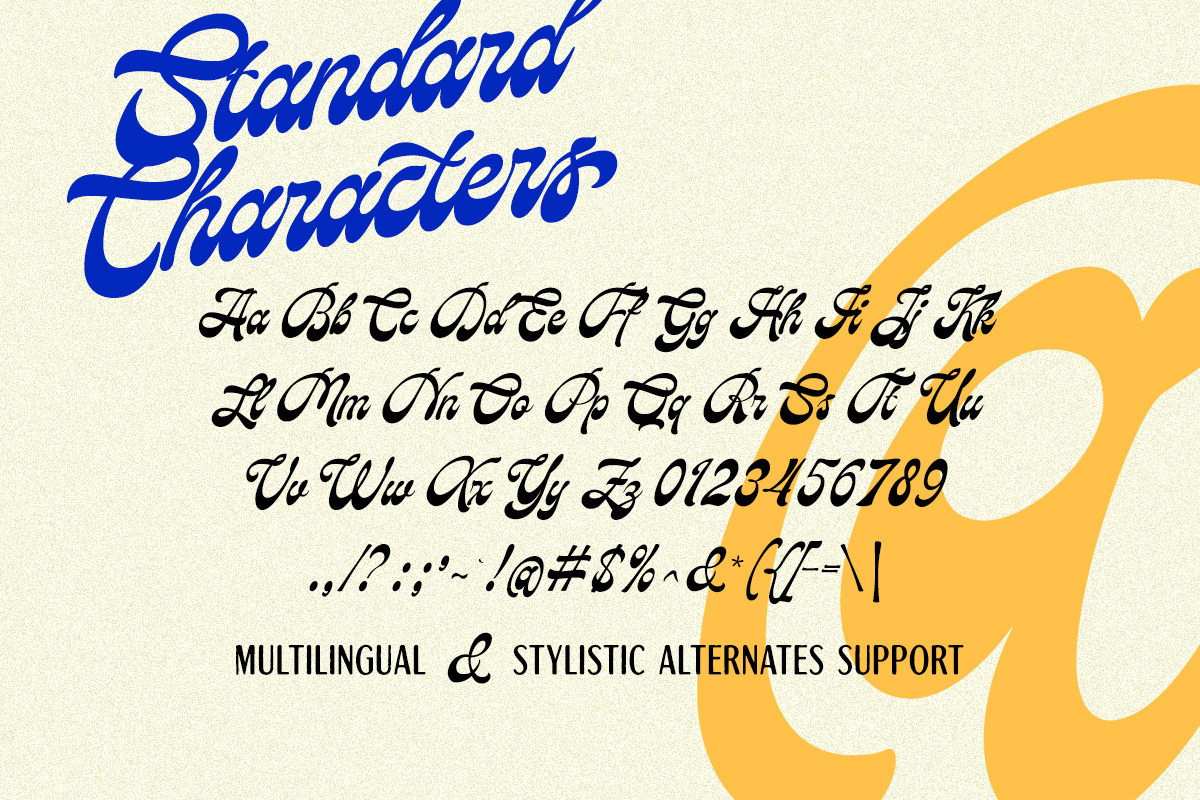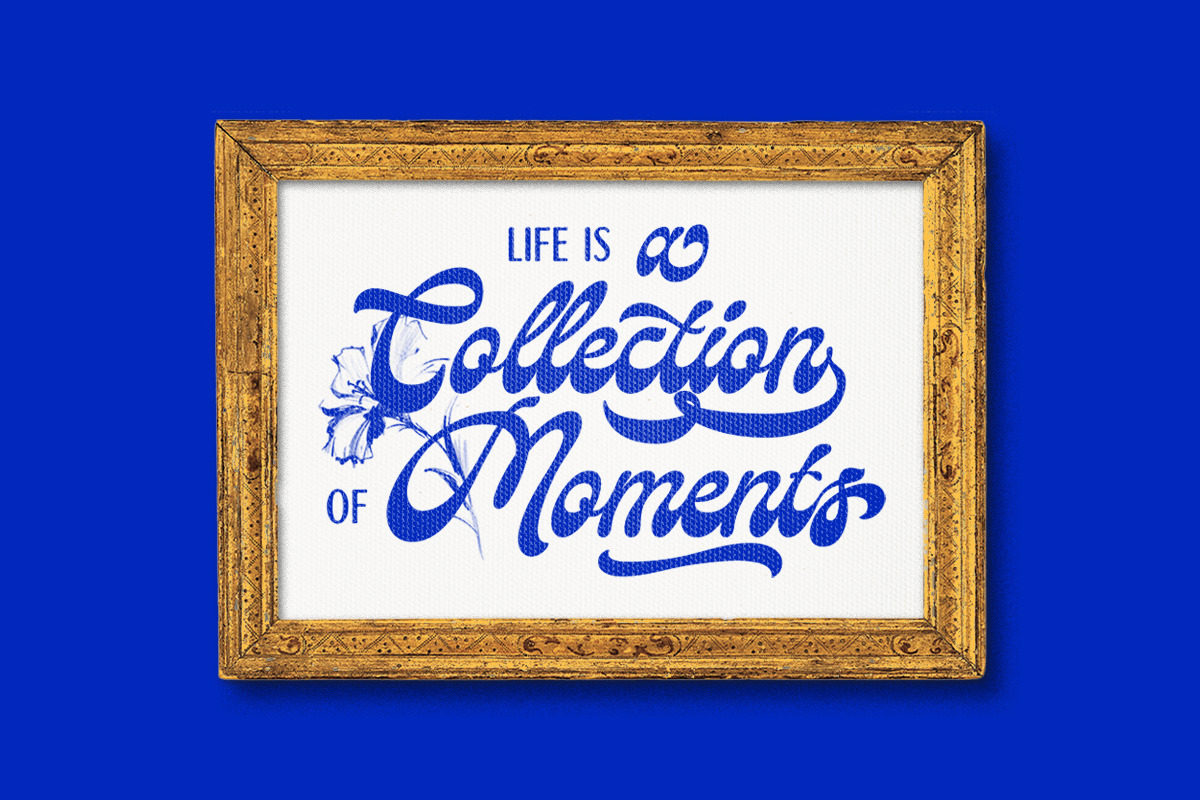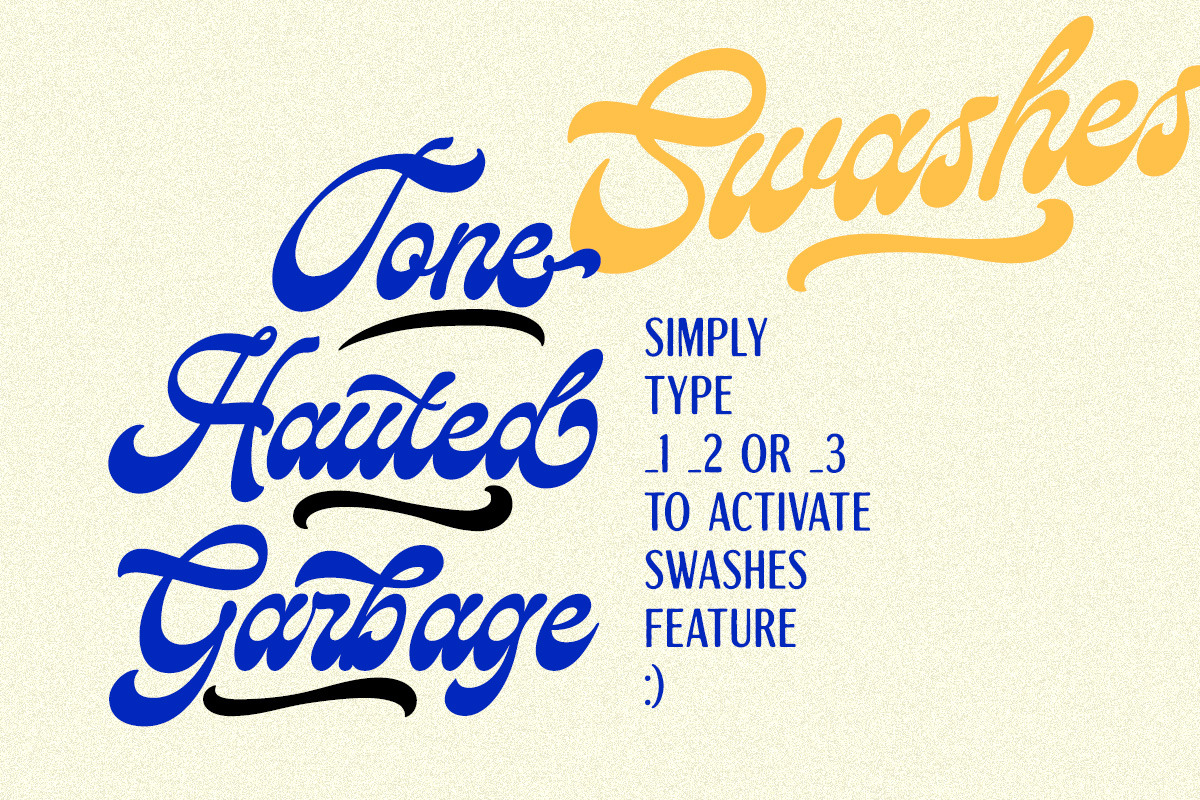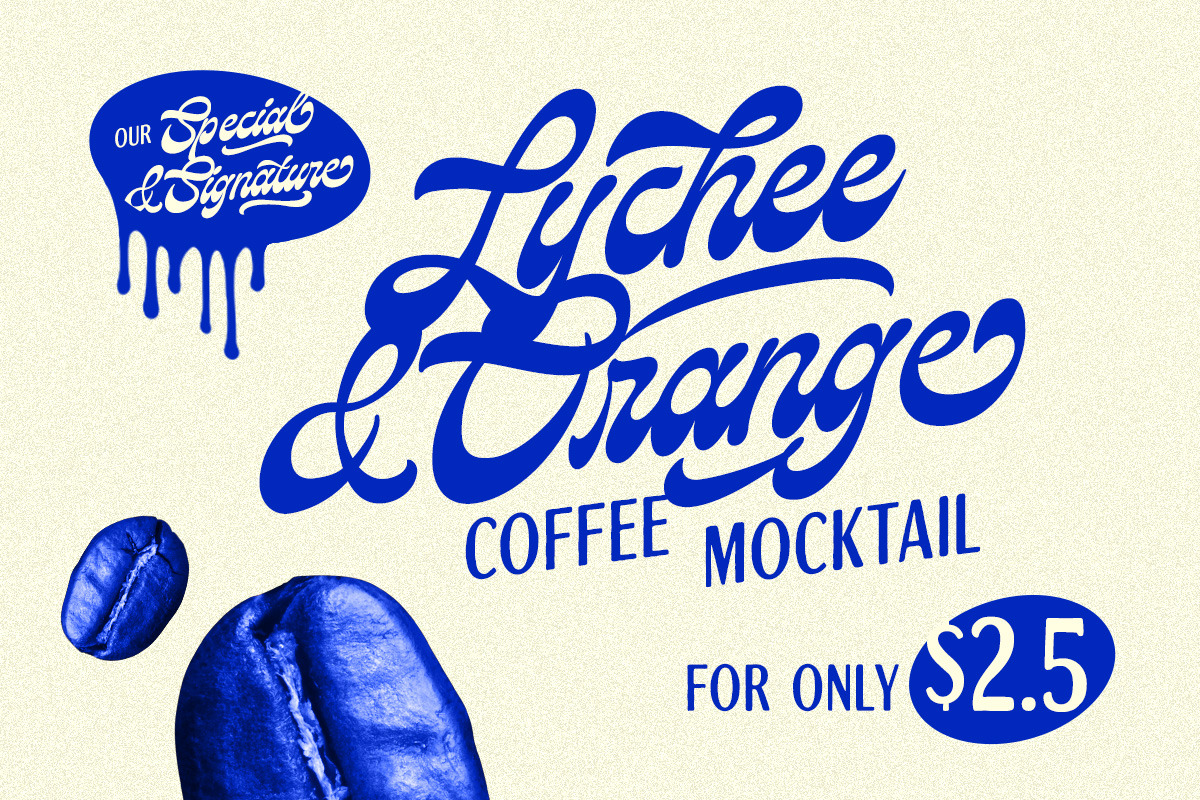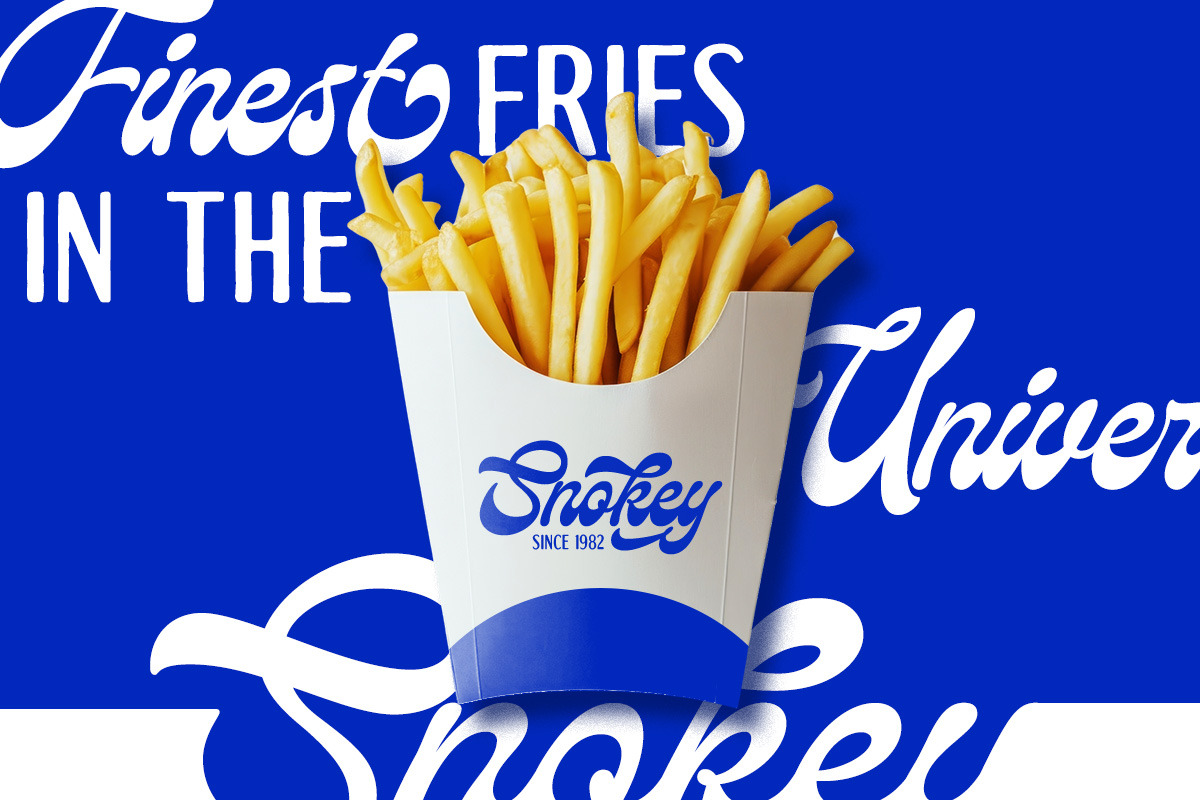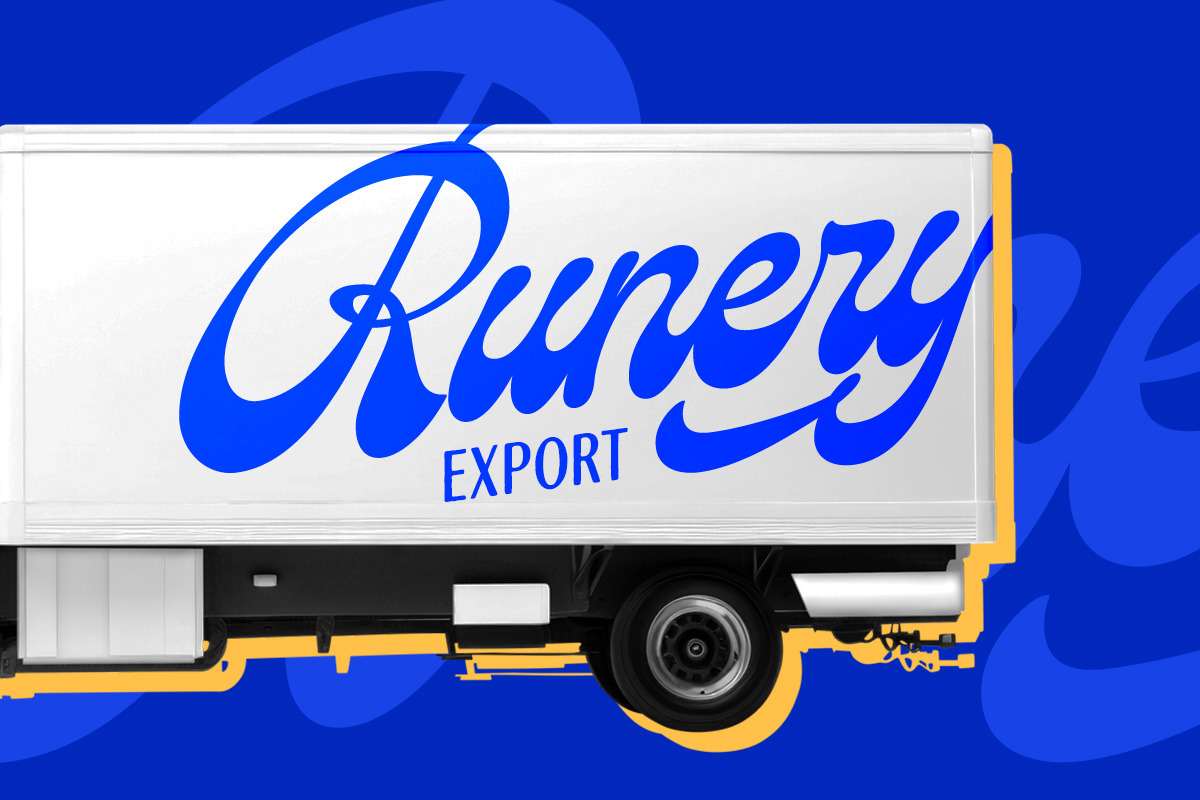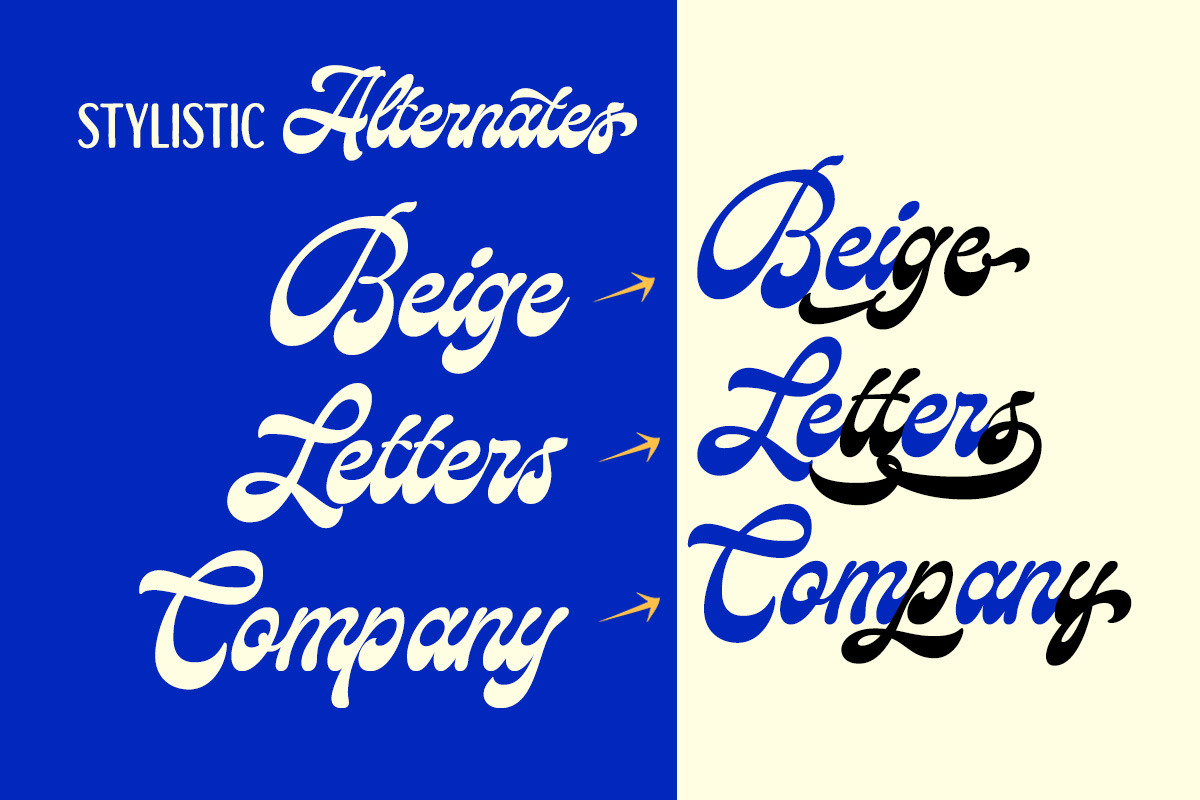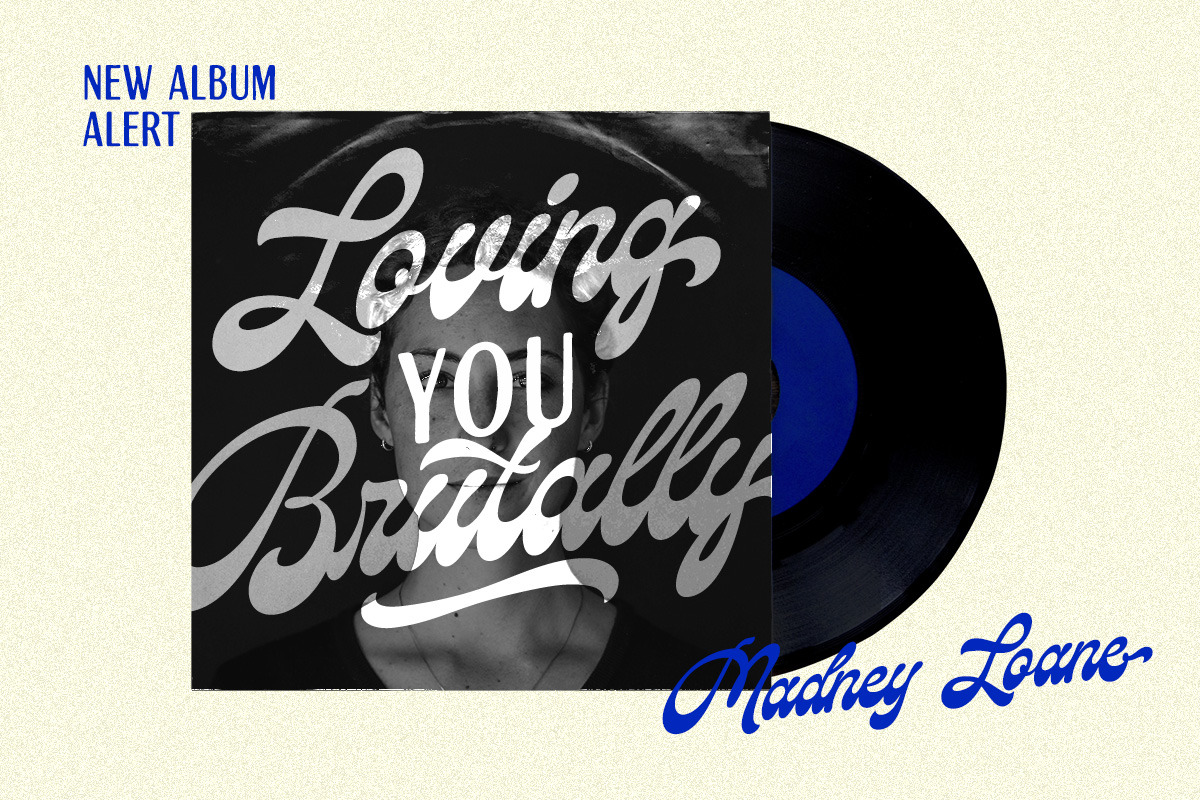
Relgone Script
Relgone is a unique retro script. You can play around with alternates character. This font perfectly made to be applied especially in logo, and the other various formal forms such as invitations, labels, logos, magazines, books, greeting / wedding cards, packaging, fashion, make up, stationery, novels, labels or any type of advertising purpose.